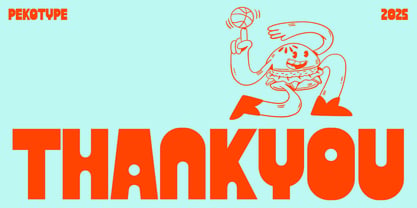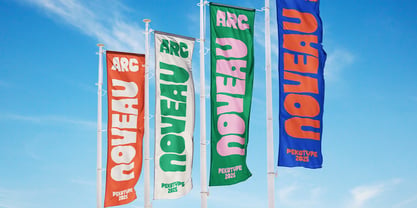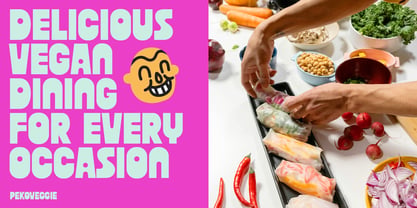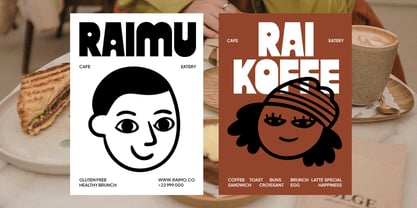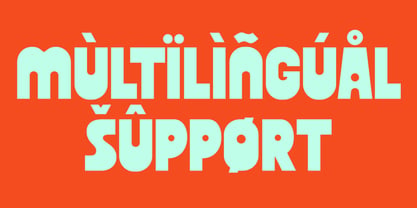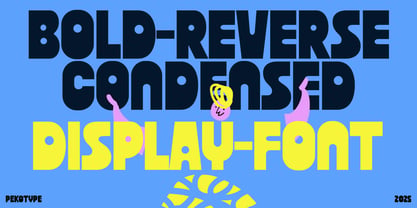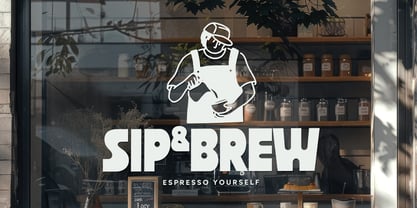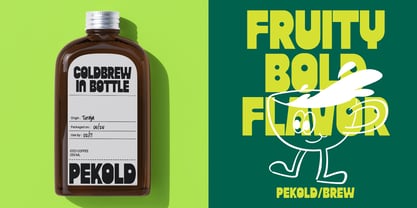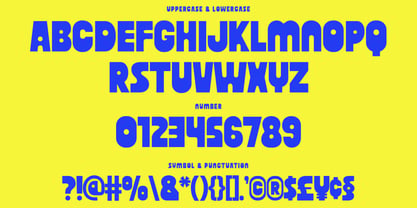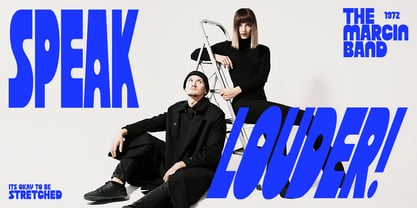
Basori
por Pekotype
La familia tipográfica Basori fue diseñada por Galang Bryan y publicada por Pekotype. Basori contiene 1 estilos. Más información sobre esta familia
BASORI is a bold display font with a unique reverse contrast style that helps your designs stand out. Its playful yet modern look makes it perfect for branding, logos, packaging, café and food-related projects, posters, and social media content. Designed to be eye-catching while staying friendly and easy to read, BASORI adds character, energy, and a memorable touch to any creative project.
Diseñadores: Galang Bryan
Fundición: Pekotype